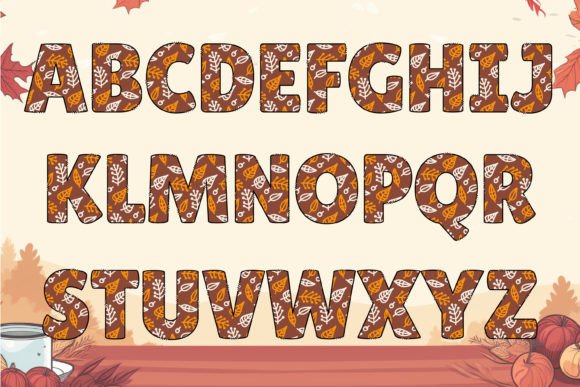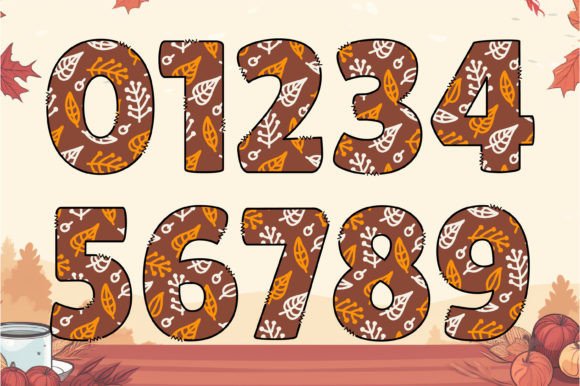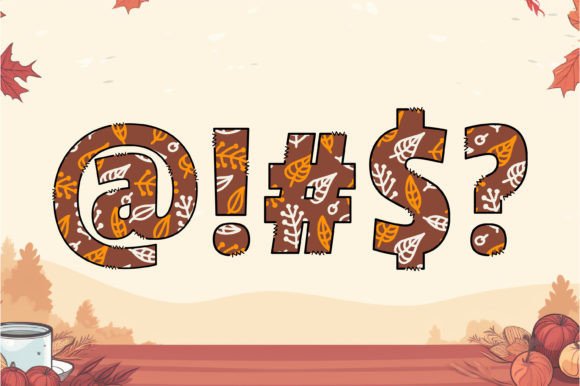
Introducing Autumn Harvest Font: Add a Splash of Fun and Brightness to Your Creative Projects
As the seasons change and autumn arrives, designers and crafters are on the lookout for fresh inspiration and exciting new fonts to add to their creative arsenal. If you’re looking for a font that embodies the warmth, coziness, and playfulness of the autumn season, look no further than the Autumn Harvest Font. This fun and bright color font is sure to bring a smile to your face and add a touch of personality to your projects.
What is Autumn Harvest Font?
Autumn Harvest Font is a vibrant and lively color font that captures the essence of the autumn season. With its bold and playful design, this font is perfect for adding a pop of color and whimsy to your creative projects. Whether you’re working on a DIY craft, a graphic design project, or a digital illustration, Autumn Harvest Font is sure to make your work stand out.
Key Features of Autumn Harvest Font
- Fun and Bright Colors: Autumn Harvest Font features a range of bright and cheerful colors that evoke the feeling of autumn leaves, pumpkins, and cozy sweaters.
- Playful Design: The font’s playful design makes it perfect for adding a touch of whimsy and personality to your projects.
- Versatile: This font can be used for a wide range of creative projects, from DIY crafts and graphic design to digital illustrations and more.
How to Use Autumn Harvest Font in Your Creative Projects
Autumn Harvest Font is a versatile font that can be used in a variety of creative projects. Here are a few ideas to get you started:
- DIY Crafts: Add a personal touch to your DIY crafts, such as handmade cards, gift tags, and decorations, with Autumn Harvest Font.
- Graphic Design: Use Autumn Harvest Font in your graphic design projects, such as brochures, flyers, and social media graphics, to add a pop of color and personality.
- Digital Illustrations: Add Autumn Harvest Font to your digital illustrations, such as autumn-themed artwork, to give them a playful and whimsical touch.
Why You’ll Love Autumn Harvest Font
Autumn Harvest Font is a unique and exciting font that is sure to bring a smile to your face. Here are a few reasons why you’ll love it:
- Unique and Eye-Catching: Autumn Harvest Font is a one-of-a-kind font that is sure to grab attention and make your projects stand out.
- Perfect for Autumn-Themed Projects: Autumn Harvest Font is the perfect choice for autumn-themed projects, such as Halloween decorations, Thanksgiving cards, and fall-themed artwork.
Whether you’re a designer, crafter, or DIY enthusiast, Autumn Harvest Font is the perfect choice for anyone looking to add a touch of personality and whimsy to their creative projects. So go ahead, get creative, and have fun with Autumn Harvest Font!